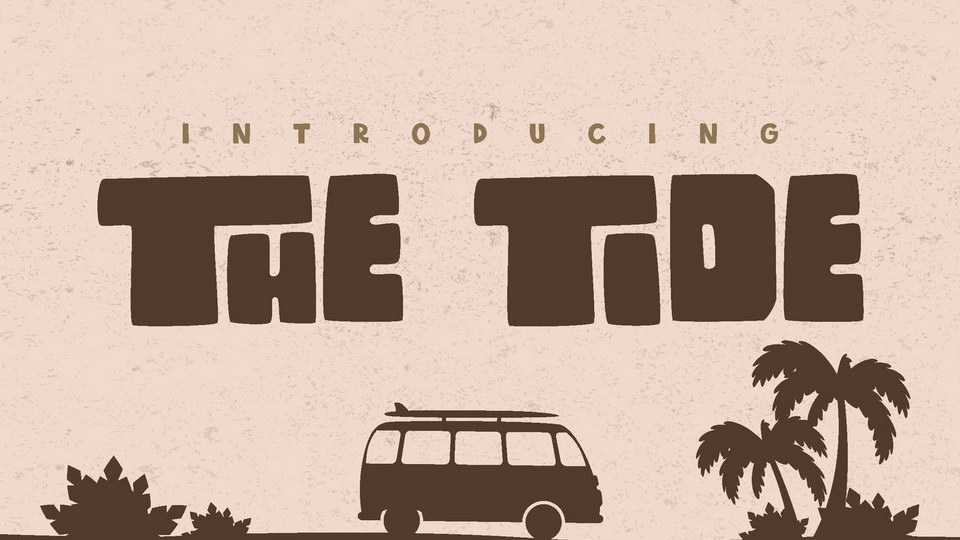
Download The Tide font, a display typeface inspired by wave sound, wind blows, the rise of the tide, and surfer slicing through the riff.. The energy of rebel and carefree feeling of them, brings The Tide as the main reason to be put on the poster.